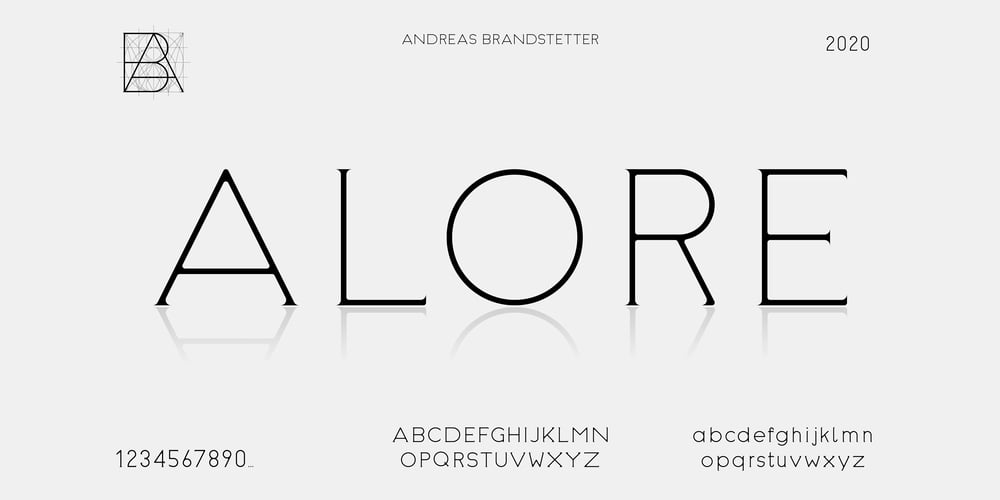
Alore
Alore font
Alore Font Family was designed by Andreas Brandstetter and published by AB Studio. Alore contains 3 styles and family package options. Alore is a modern serif font family in geometric design, based on the complimenting design of AB ONE. By focusing on the small details during the design, a font was made that comes with a very dynamic style, combining modern elements with classical serif elements. Use Alore for a wide range of your projects, from headlines all the way to messages and text.